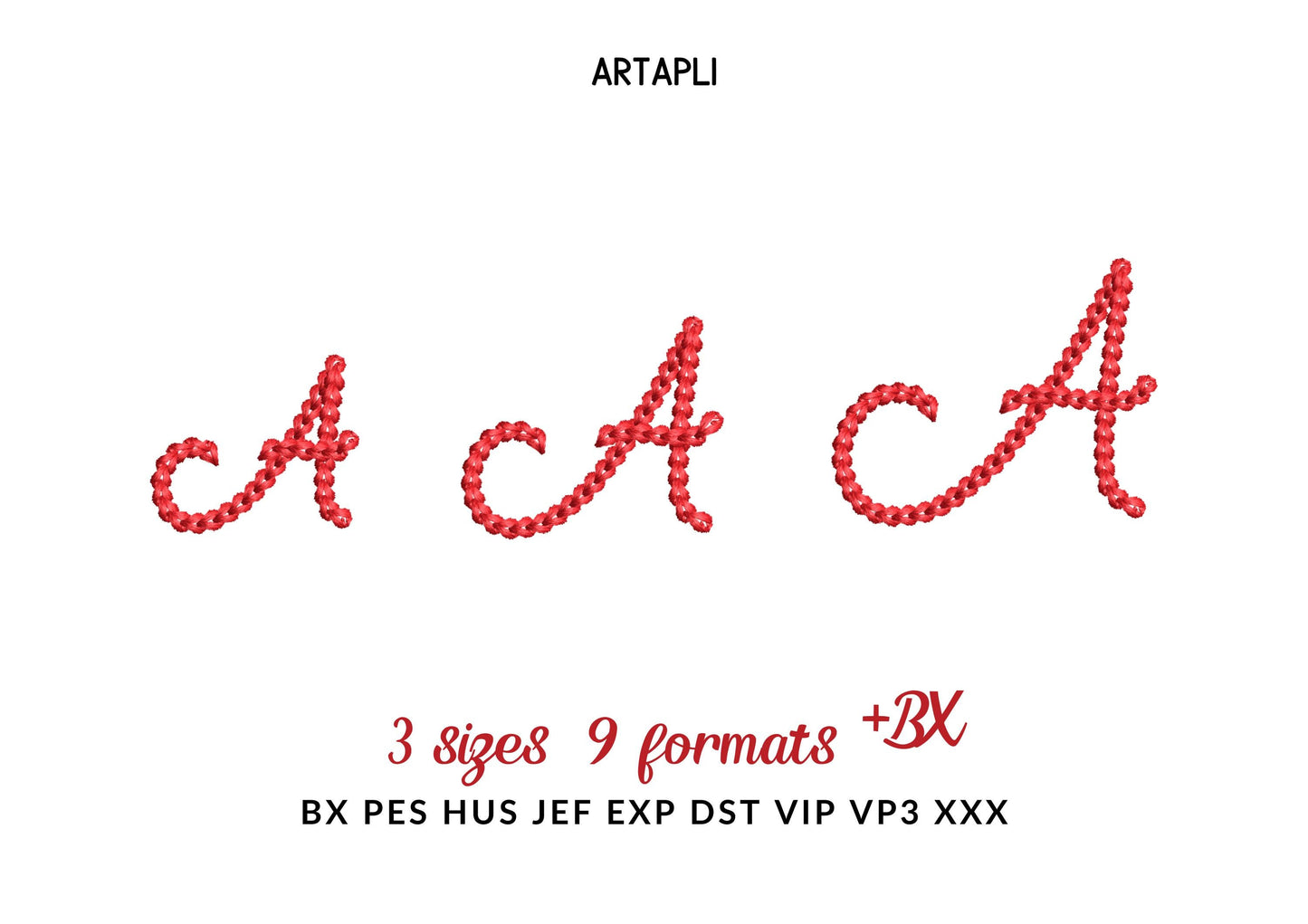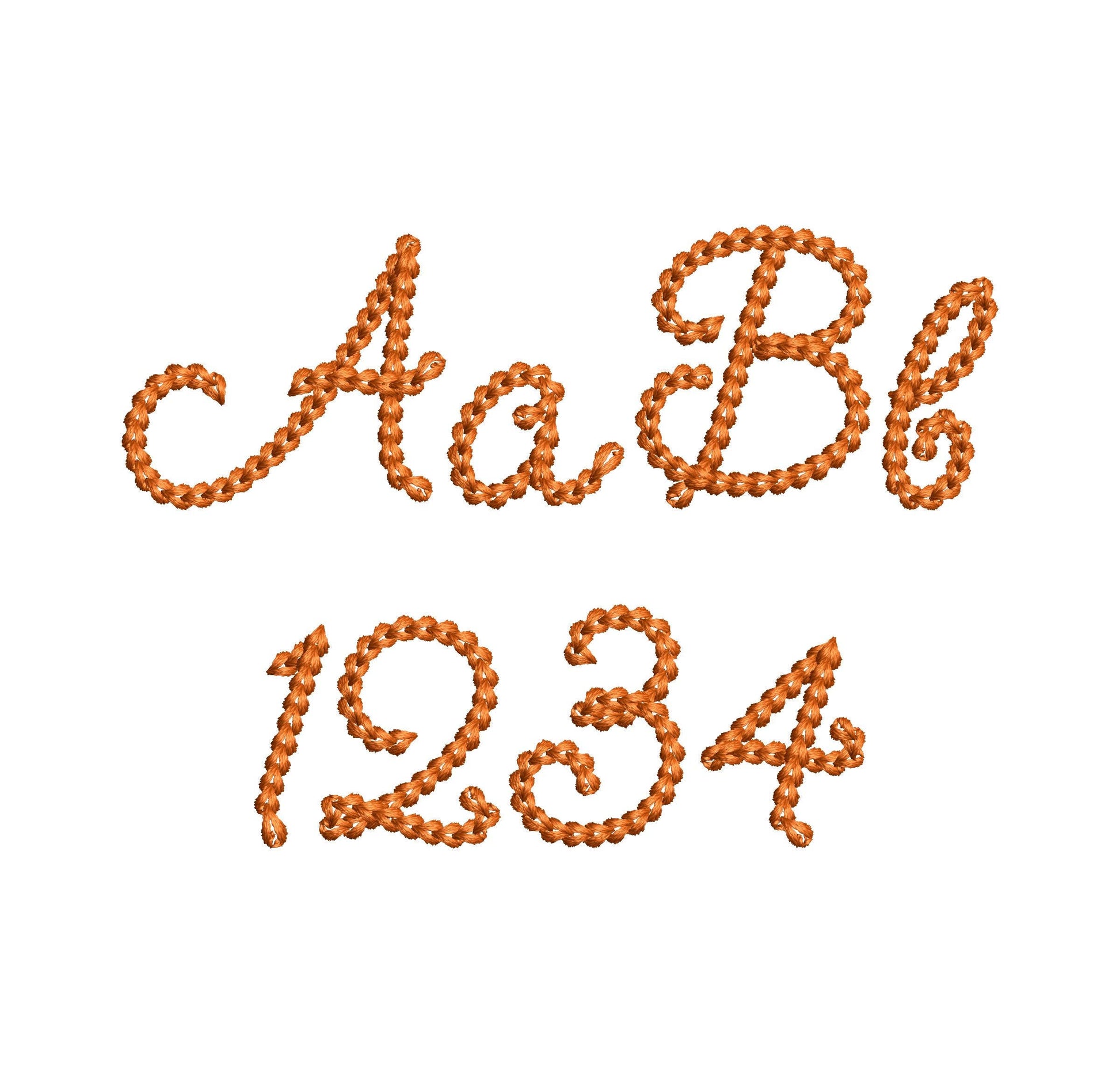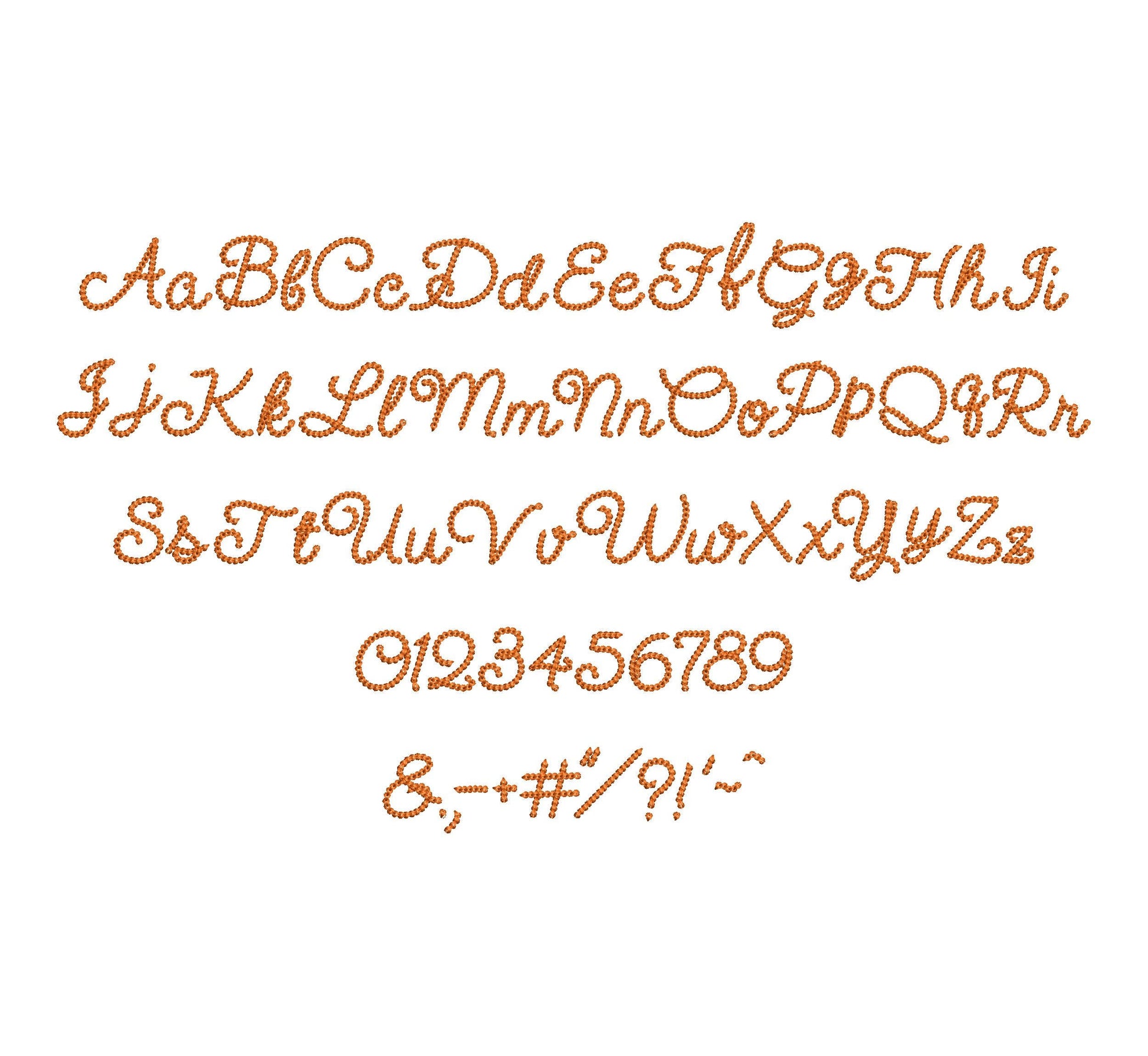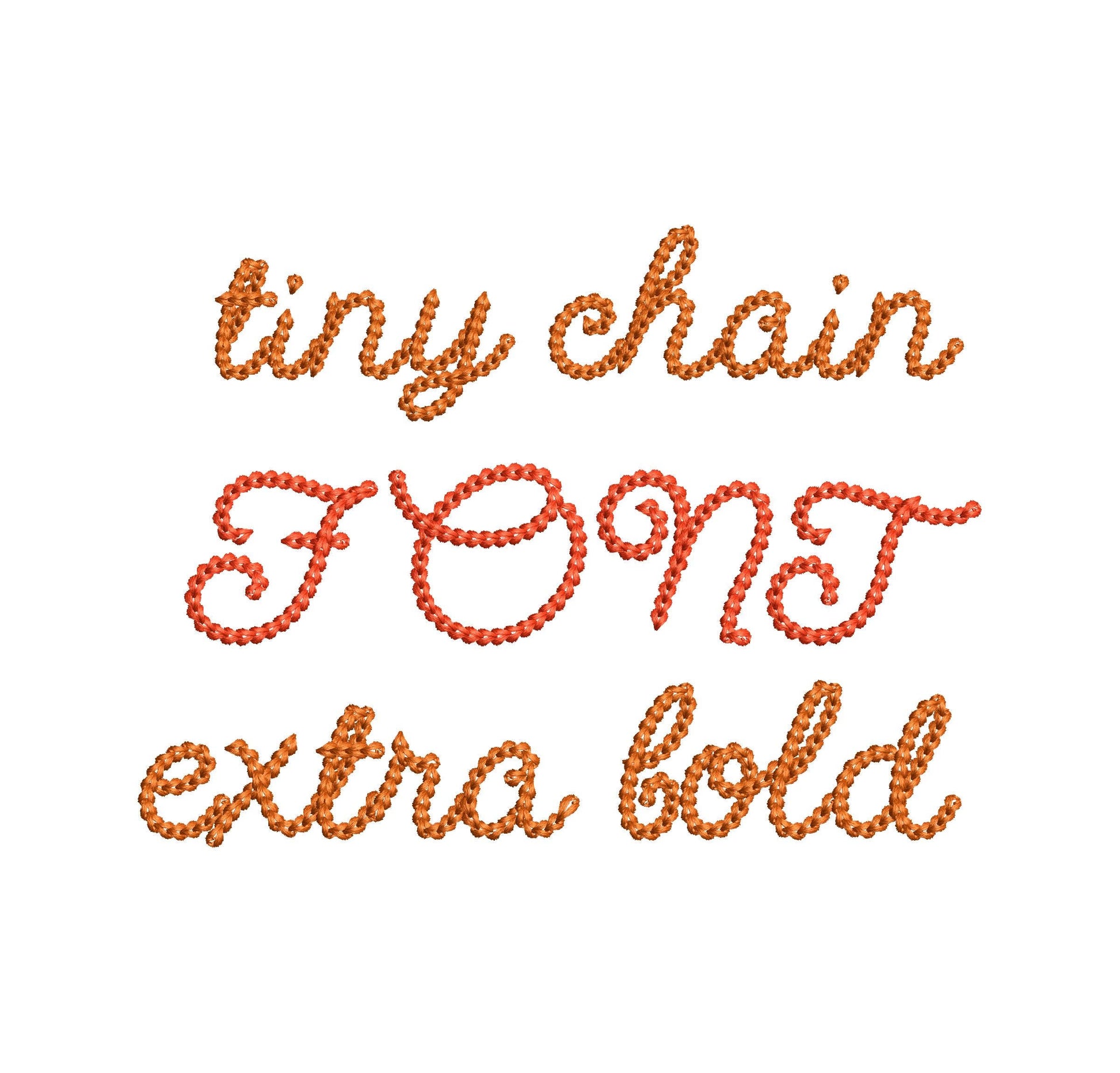
Extra Bold Mini Chain Font Delicate
Or click to open the linkA tiny, extra bold chain stitch script font with a sweet handwritten feel. Lovely for baby names, kids' clothes, bibs and small gifts.
Uppercase and lowercase letters, numbers 0 to 9 and punctuation, in one size: 1 inch.
- Extra bold mini chain script font
- Uppercase, lowercase, numbers 0 to 9, punctuation
- 1 size: 1 in